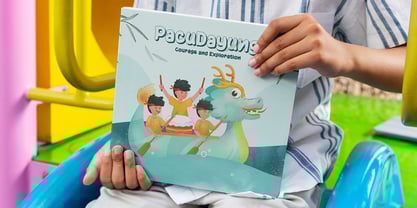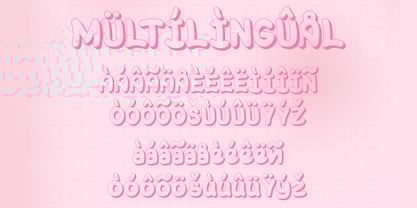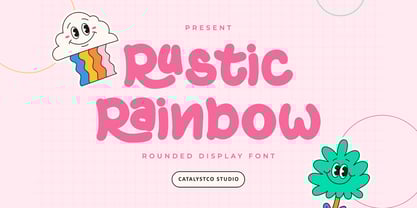
Rustic Rainbow Family
by Catalystco Std
The Rustic Rainbow Family Font Family was designed by and published by Catalystco Std. Rustic Rainbow Family contains 3 styles and family package options. More about this family
The Rustic Rainbow Rounded Display is a premium typeface designed to elevate your creative projects.. Perfect for manufacturing quotes, logotypes, magazine headers, and more, this font brings a professional and refined touch to any design.
With features like OpenType format support, a complete set of uppercase and lowercase letters, stylistic ligatures, alternates, multilingual support, and numerals with punctuation, it ensures adaptability and precision. Whether you're crafting brand identities, editorial layouts, or stand out typography, Rustic Rainbow Rounded Display delivers exceptional results for polished, high-quality designs.